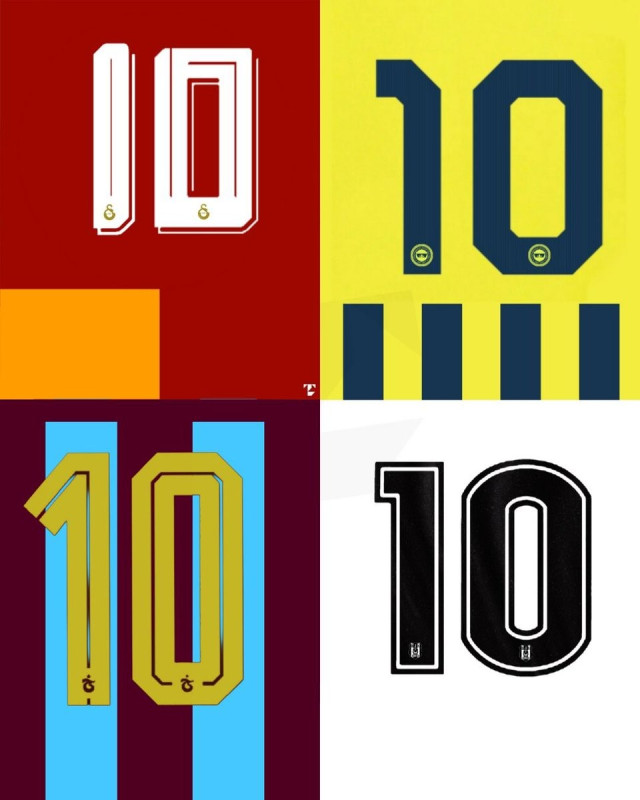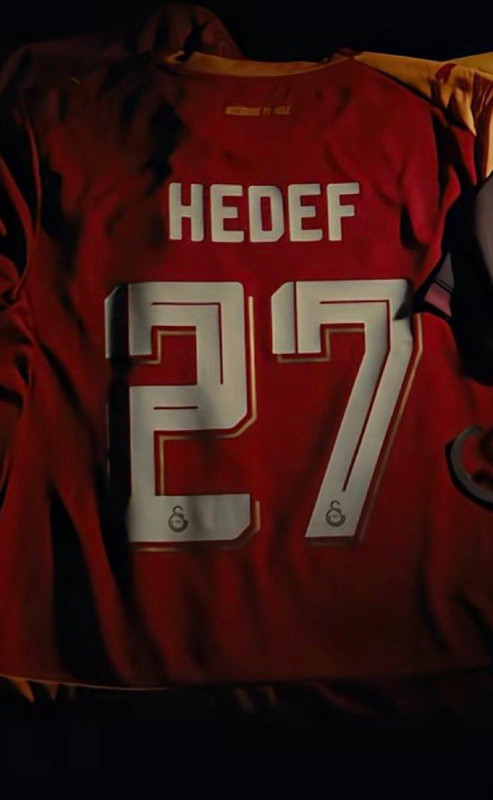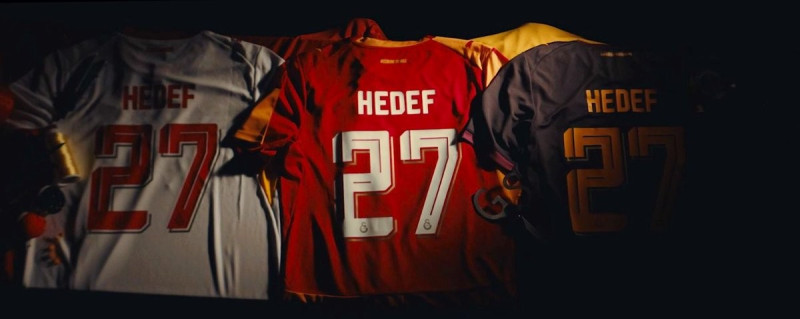
Following the Turkish Football Federation's decision to abolish the mandatory league-wide Arial font, Turkey's biggest clubs have unveiled their custom typography for the 2026-27 season. Football kits specialist @TheTLdesign has shared the new number fonts that will be adopted by Fenerbahçe, Galatasaray, Beşiktaş, and Trabzonspor, marking a definitive end to the unified font era and giving each club a distinct visual identity on the pitch.
The revealed designs showcase unique approaches for each of the four teams. Galatasaray introduces a modern, angular typeface that answers long-standing supporter requests for a bespoke look, while Fenerbahçe, Beşiktaş, and Trabzonspor have also opted for stylized numbers that align with their respective club branding. The move to individualized fonts allows the teams to fully customize the backs of their shirts for both domestic and European competitions.
This shift represents a significant aesthetic upgrade for the Süper Lig. Fans have widely praised the transition away from the generic numbers used in previous years, with many expressing a preference for these unique designs that better reflect the character of Turkey's top football institutions.